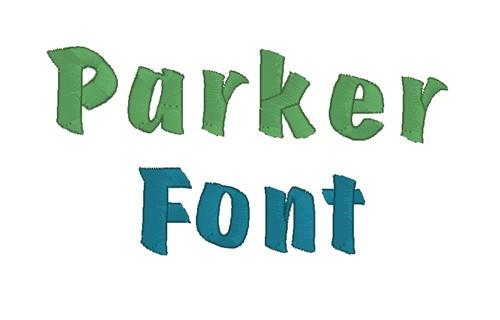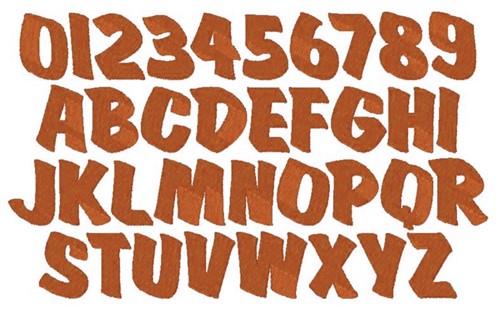
Unicorn Creatives is happy to present Parker Embroidery Font - Playful Whimsical Style - PES, DST & 9 formats machine embroidery font which has Playful machine embroidery font with varied letter sizes and a fun mix of green and blue, ideal for informal projects on backpacks or caps. Available in PES, DST, and 9 other formats. included. If you would like to view more embroidery fonts and alphabets please search our embroidery fonts page.